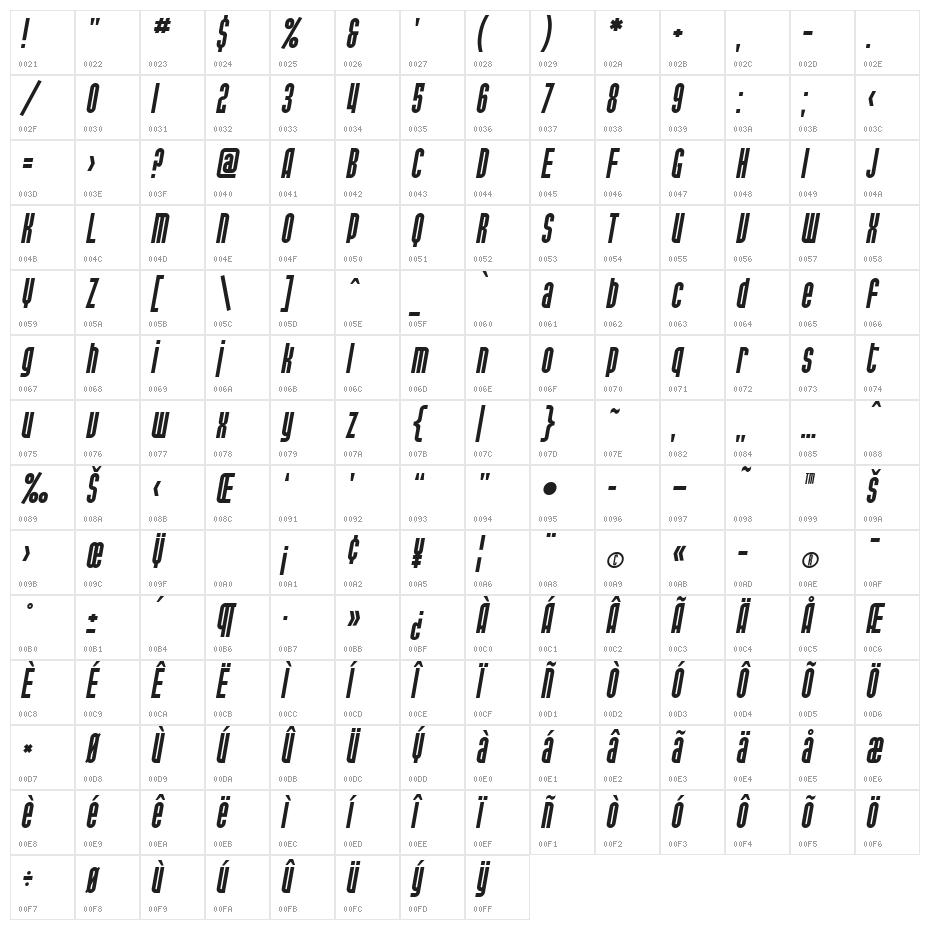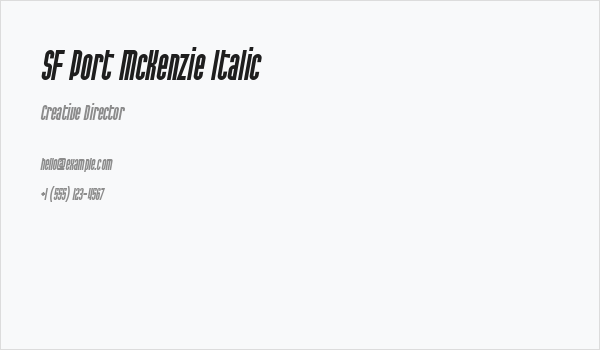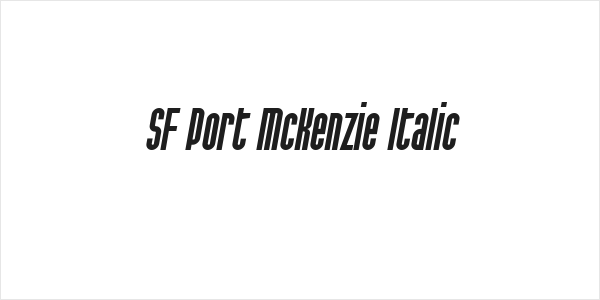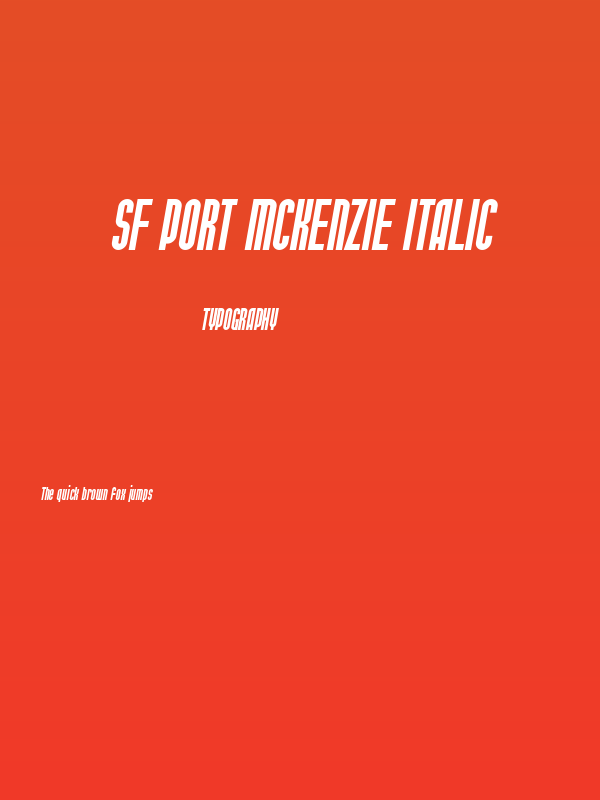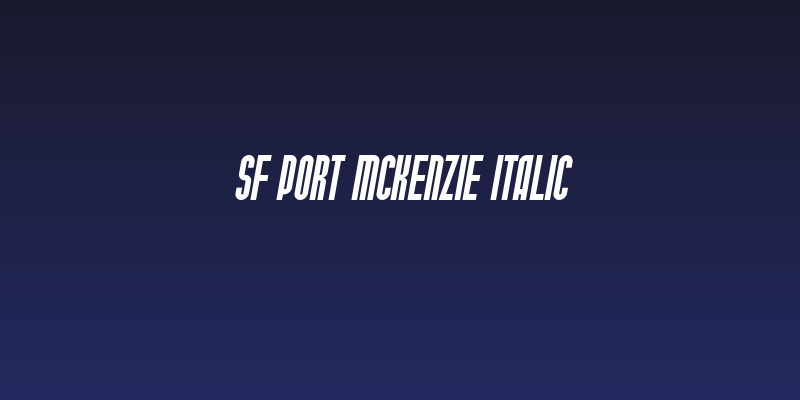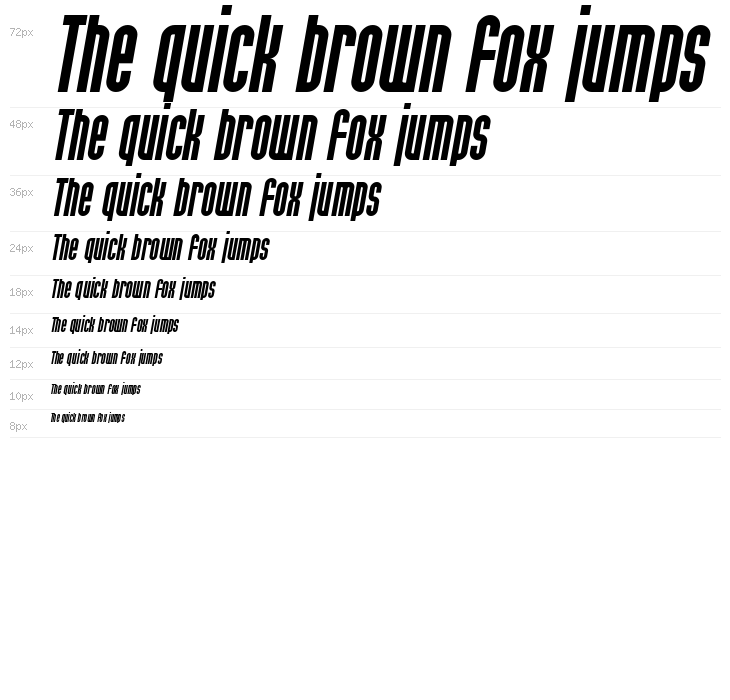
SF Port McKenzie Italic Font
SF Port McKenzie Italic Description
This font features a bold and dynamic style with a pronounced italic slant, giving it a sense of movement and energy. The characters are tall and narrow, contributing to a condensed appearance that maximizes space efficiency. The strokes are consistent in thickness, providing a uniform look across all characters. The uppercase and lowercase letters maintain a cohesive design, while the numerals and special characters integrate seamlessly, ensuring versatility in various applications. The overall aesthetic is modern and impactful, making it suitable for attention-grabbing designs.
Proposed ProjectsIdeal for sports branding, dynamic posters, modern advertising, and any project requiring a bold and energetic typeface.